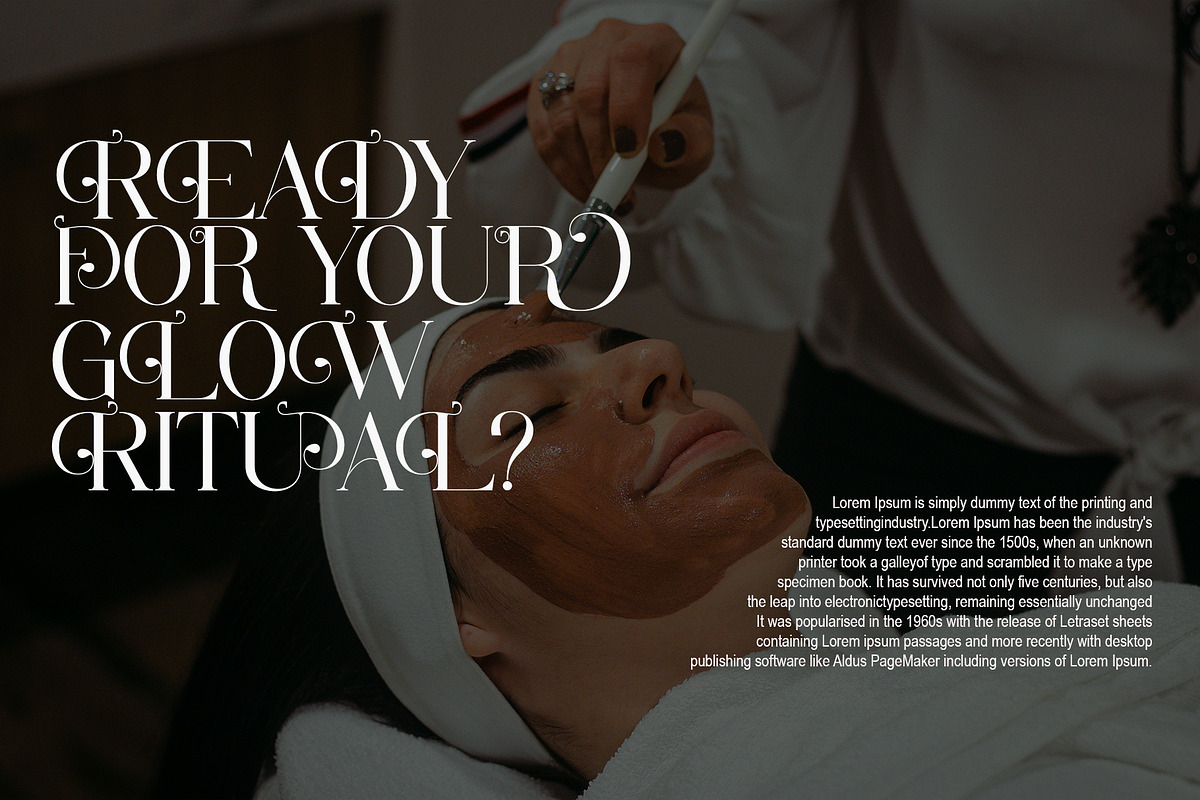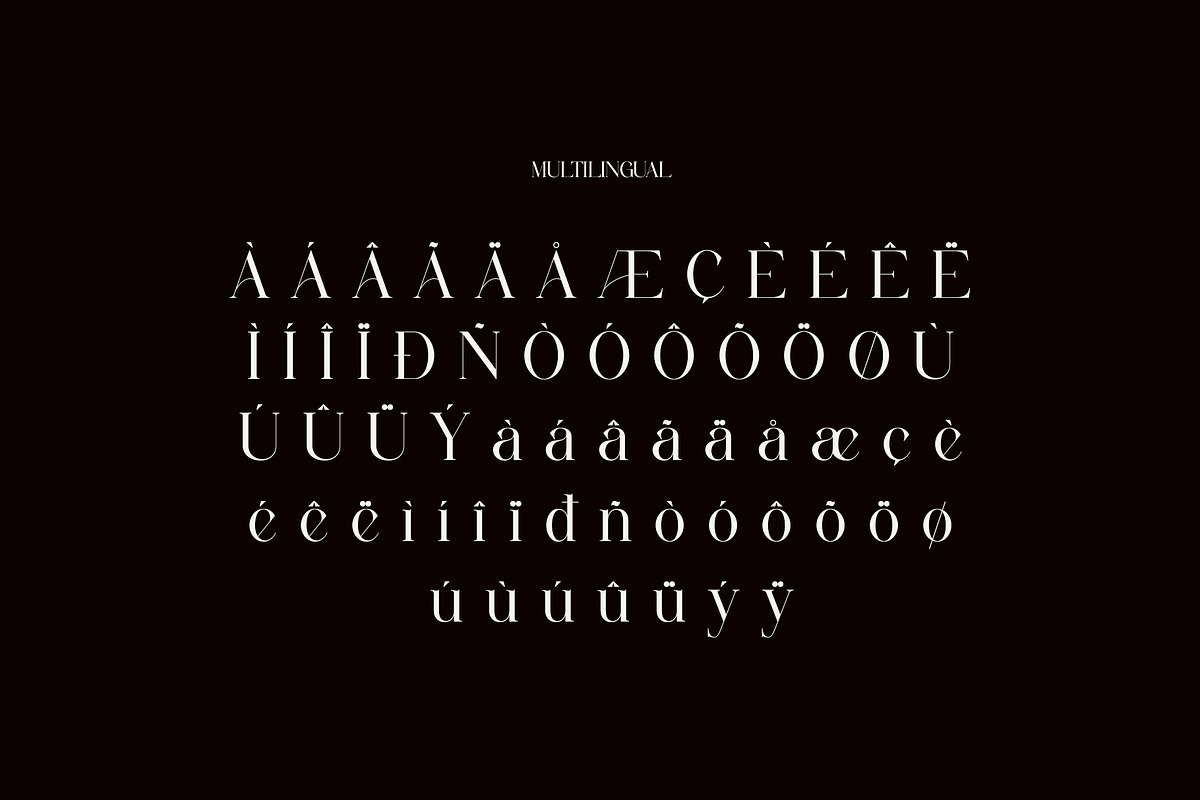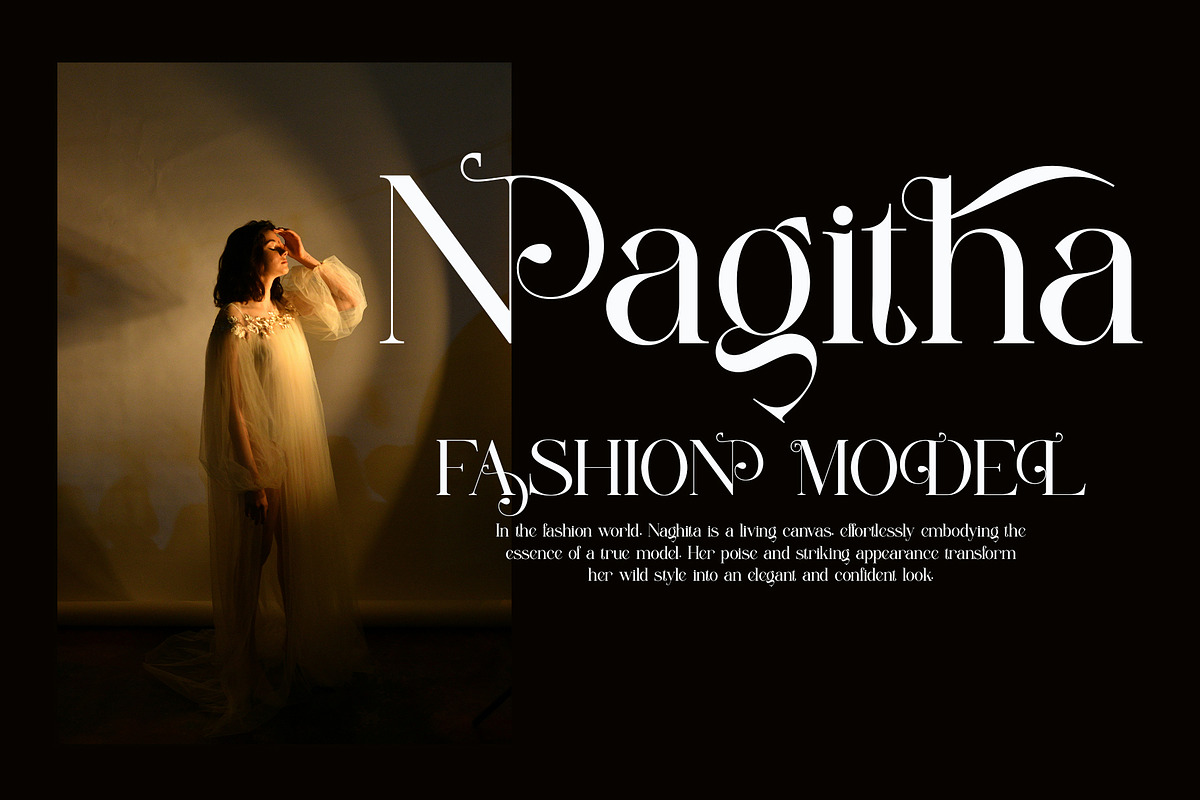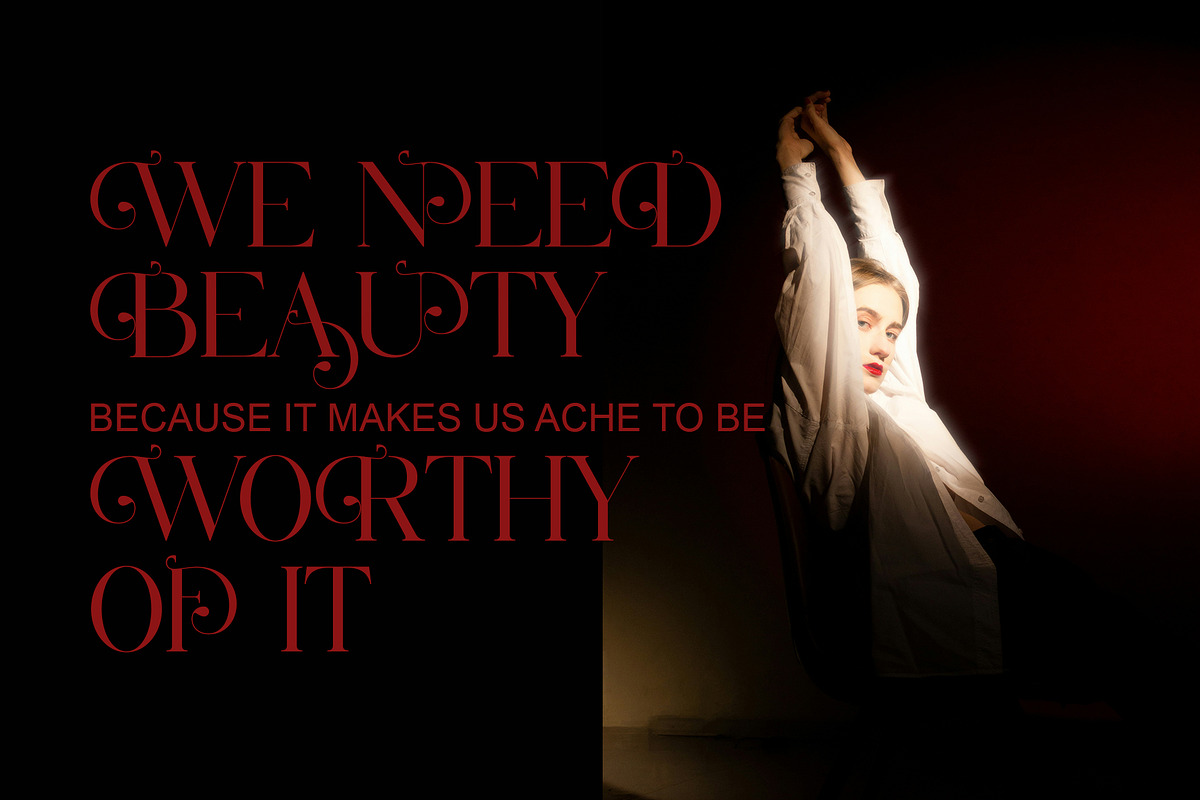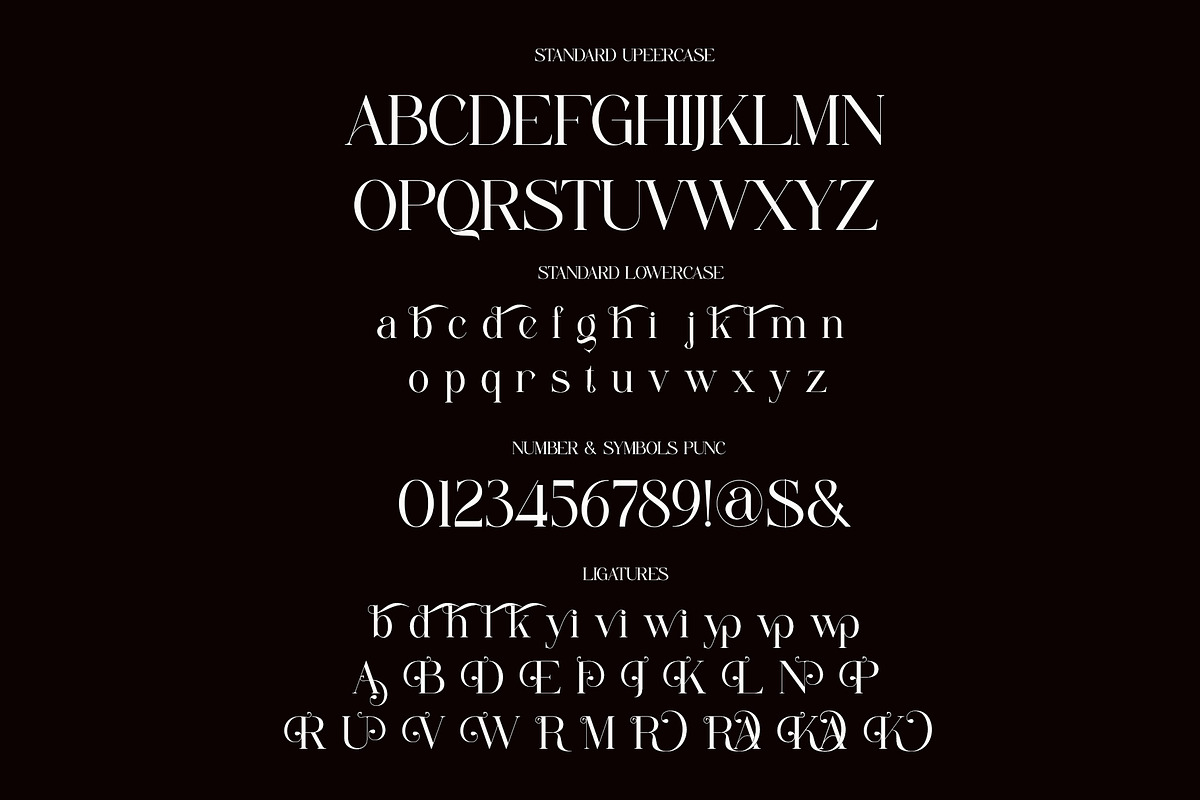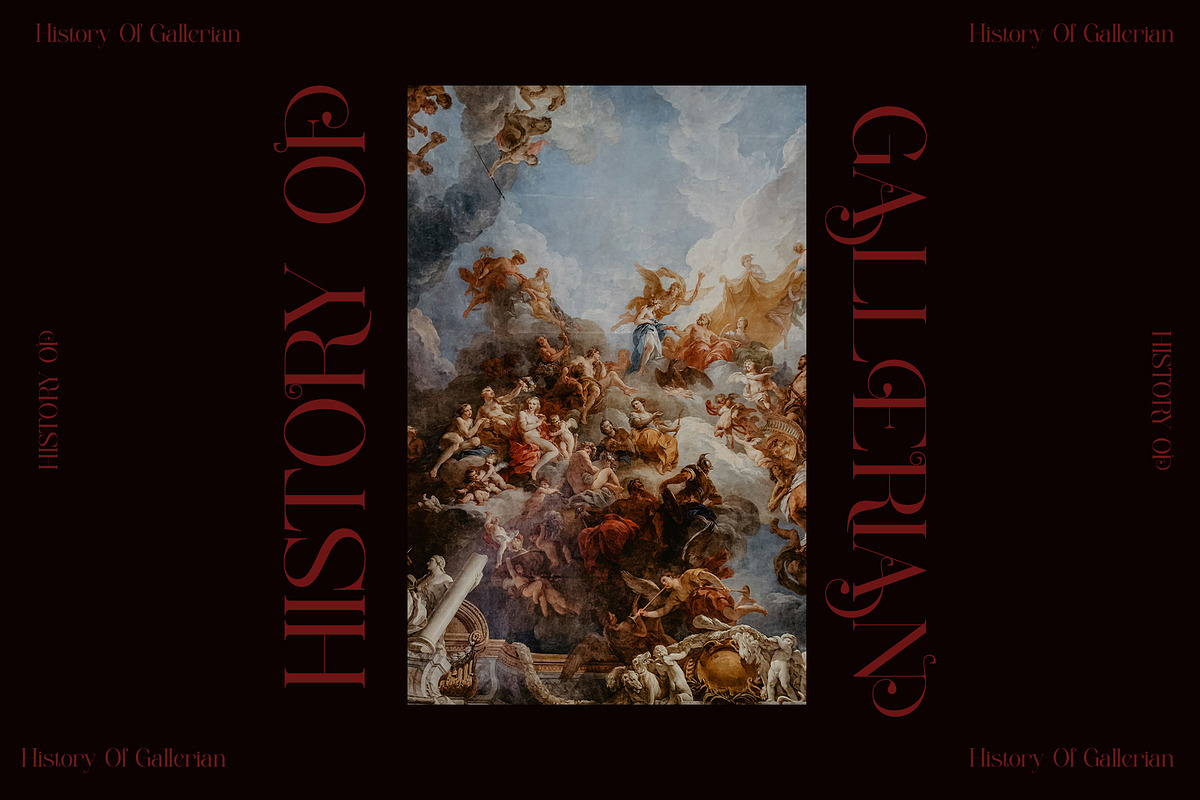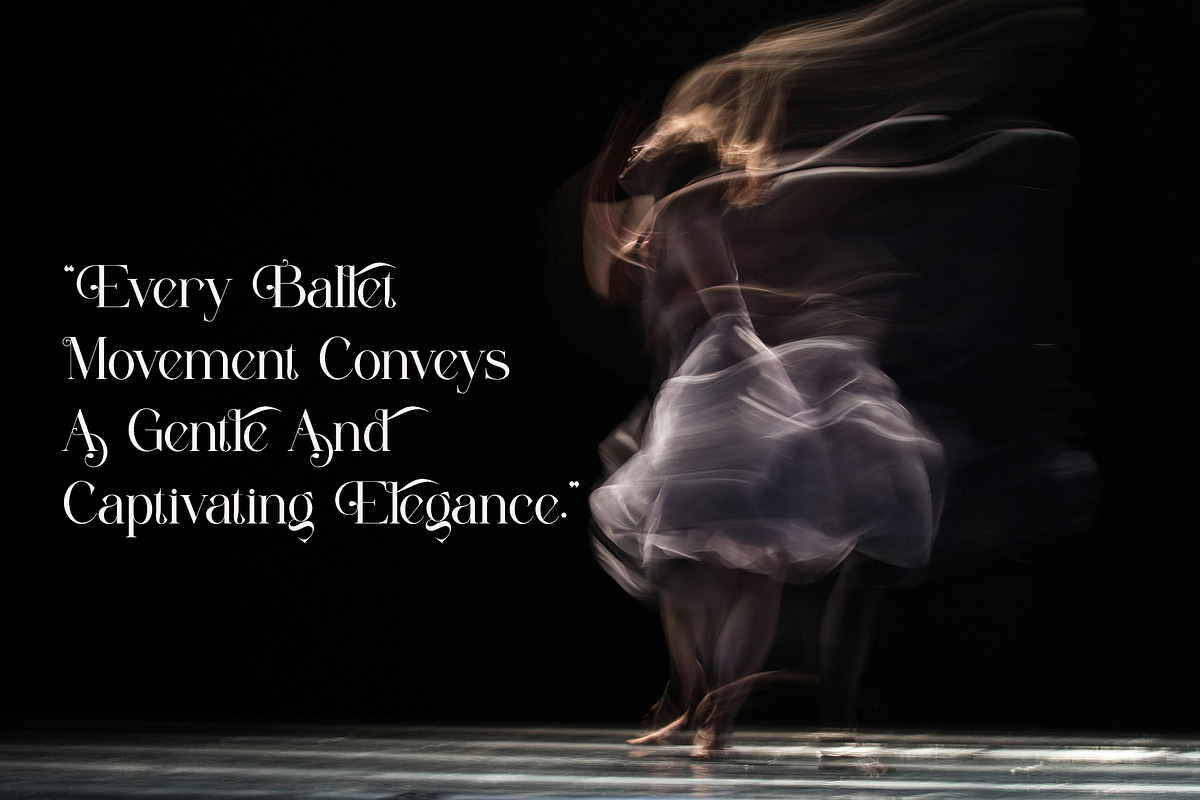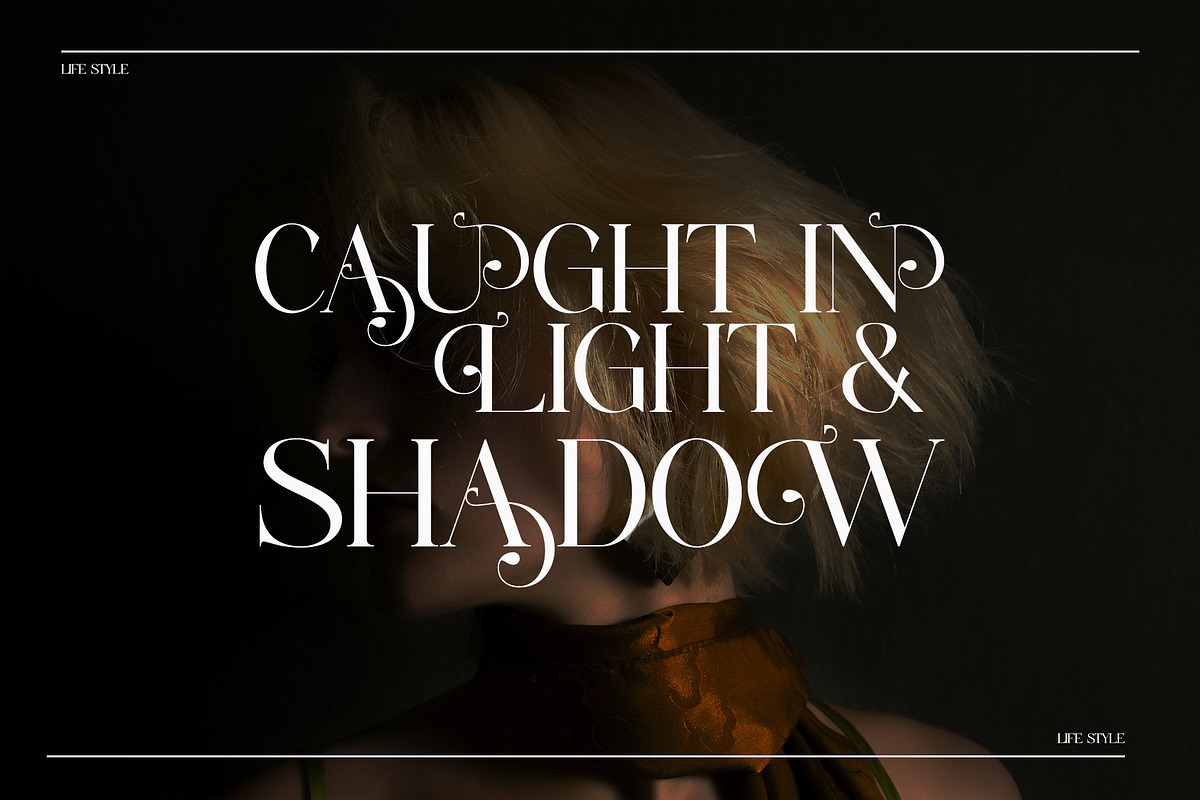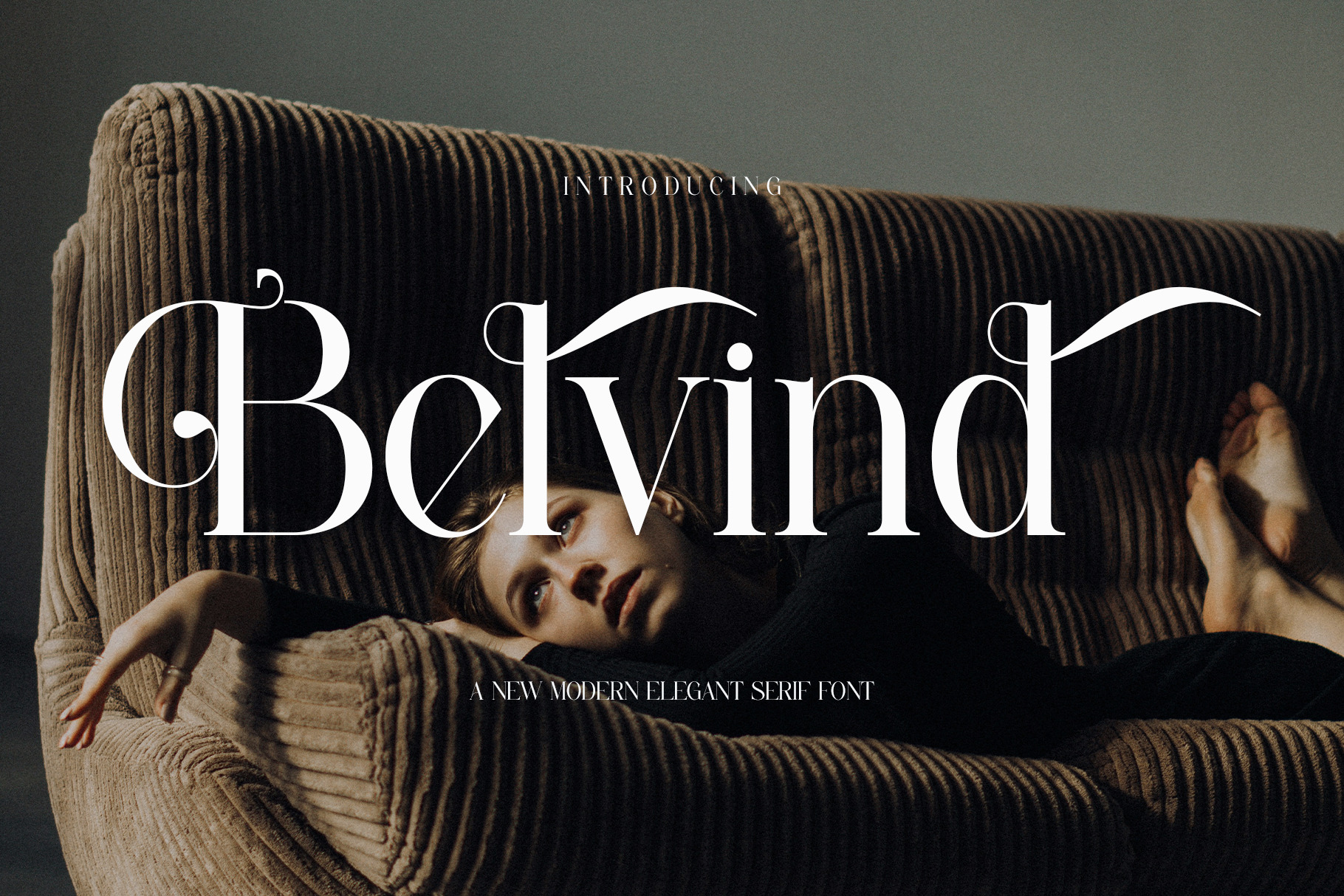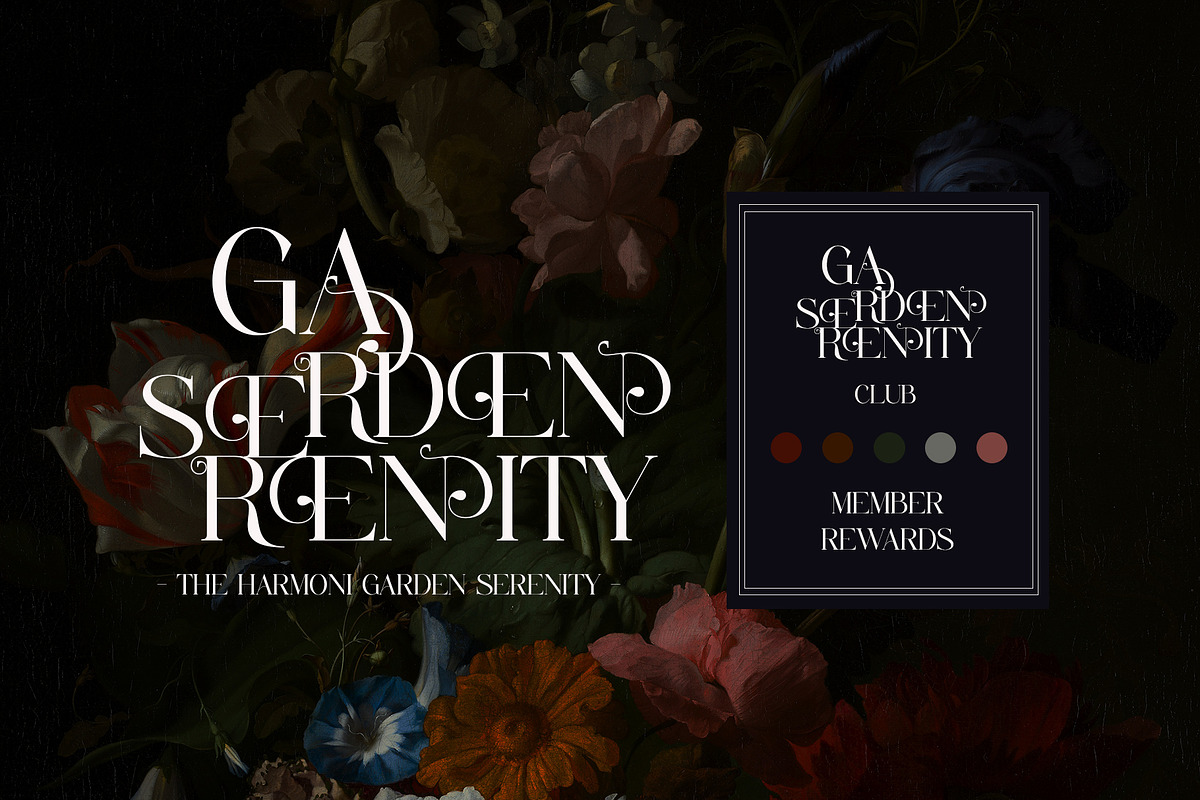
Belvind Modern Elegant Serif Font
Belvind an elegant ligature serif modern font that evokes the beauty of fresh blooms and timeless elegance. With its bold yet refined ligatures, Belvind stands out as a sophisticated and feminine typeface. Perfect for upscale designs, whether for florals, fashion, or high-end branding, Belvind pairs the charm of classic serif styles with a modern twist. Every letter feels intentional, with a soft and graceful presence that elevates any project it touches.
Bring a touch of refinement and natural grace to your work with Belvind . Let this font breathe elegance into your designs, and watch them flourish with style and character.